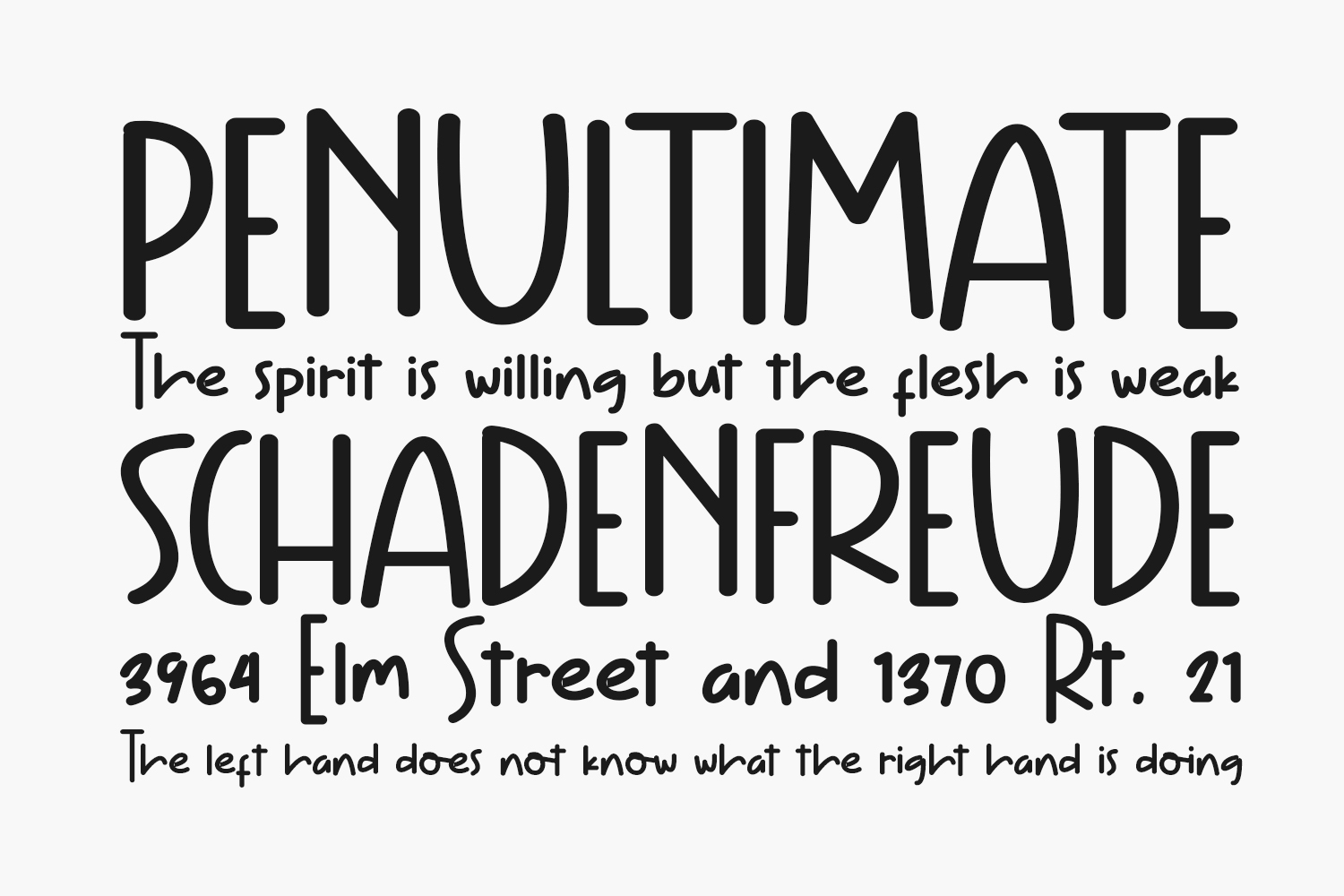
Flying Birds Free Font is a cool and playful handwritten font, that can be used for all chalkboard quotes or teaching material! Its authentic handwritten look and feel will add a personal and realistic feel to your designs. Flying Birds Free Font was designed by ONG Type and is free for personal use only. Please purchase the full version for commercial use.